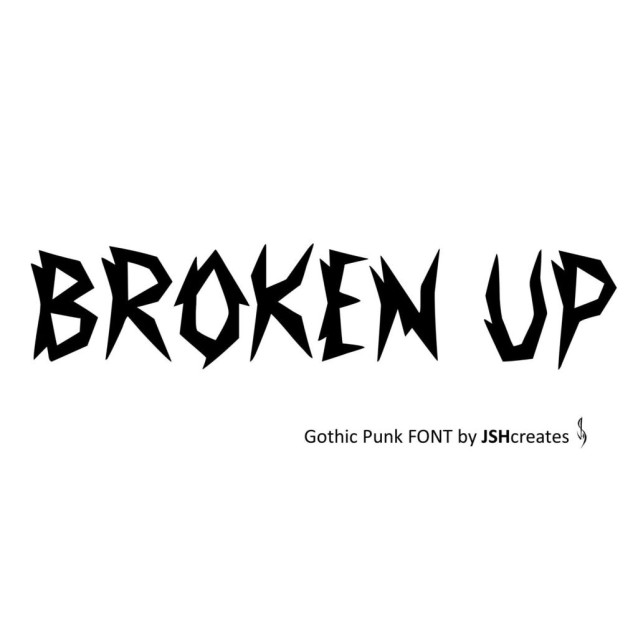
Broken Up Font
Broken Up Font – Modern gothic punk font. Perfect for advertising and display purposes, including banners, book covers, shirts, posters, logos and much more! This is an All CAPS font, including numbers.